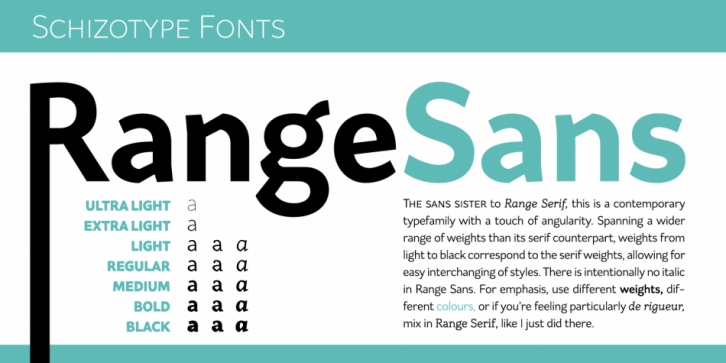
Range Sans is a sans serif font family. This typeface has seven styles and was published by Schizotype Fonts.
This is Range Sans, the sans-serif counterpart to Range Serif. It can be categorized as a grotesque, with the idiosyncratic angular details from the serif family making themselves known in the arches and bowls of the lower case. The range of weights is larger than Range Serif, with two more weights at the lighter end of the spectrum. The weights from light to black correspond to their seriffed sisters, so can be interchanged with them freely while maintaining a similar text color and vertical metrics. This is useful for adding emphasis; Range Sans is deliberately lacking an italic, but the italics from Range Serif work better than you might expect in running text, particularly for the light and regular weights.
Range Sans has a contemporary, somewhat geometric look that lends itself to uses such as corporate identities, minimalist graphic design, and logos. The middle weights do work well in running text, however, with the angled details being less noticeable at small sizes.
Designed for demanding typography, supporting most Latin-based languages, Range Sans is equipped with true small caps for all weights, an array of numeral styles (proportional- and tabular- lining and oldstyle figures, small cap figures, numerators, denominators, superscripts and subscripts/scientific inferiors), automatic fractions, a set of useful arrows, case sensitive forms, and a range of currency symbols including recent additions: Turkish Lira, Indian Rupee and Russian Ruble.